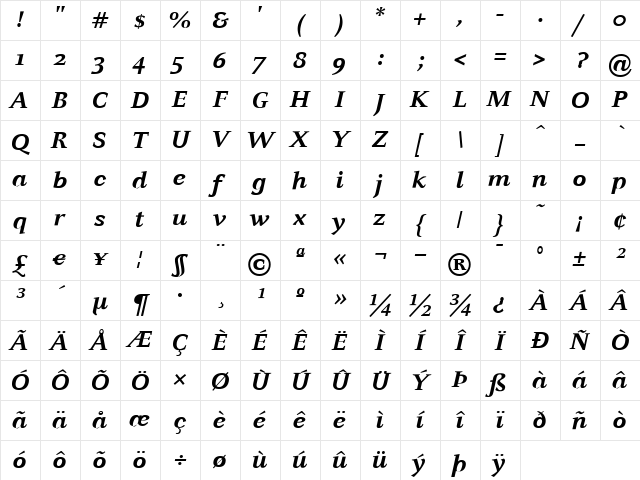
Complete CelesteST ItalicBold glyph index. Displaying only characters natively supported by CelesteST ItalicBold font.
CelesteST is a composed and adaptable typeface that performs quietly and consistently across a wide range of design contexts. The slanted form adds forward momentum and visual energy. Its bold stroke weight gives it real presence on the page.
Pro Tip: Use CelesteST for emphasis, pull quotes, and subheadings where its slanted energy can add rhythm to the layout.
Who designed the CelesteST ItalicBold font?